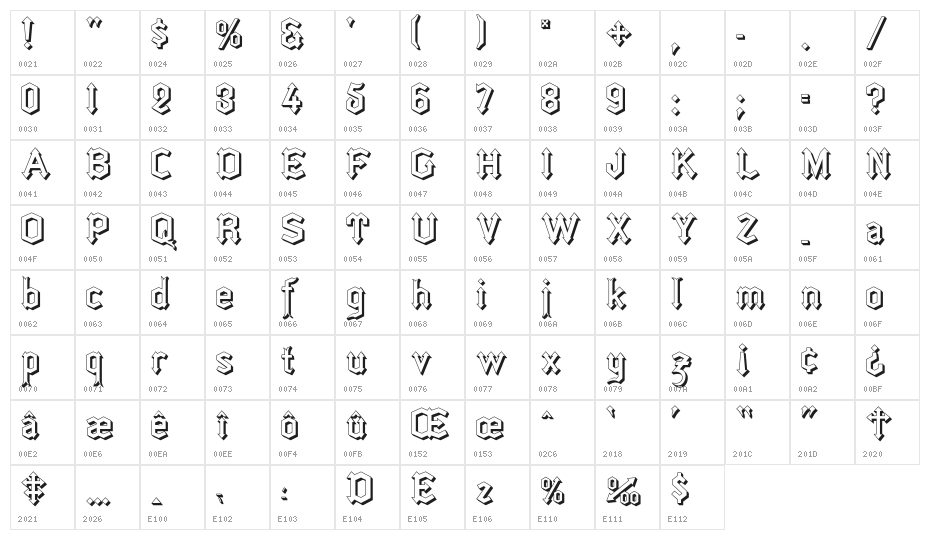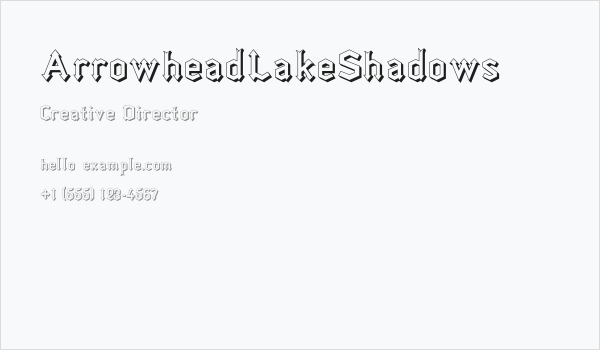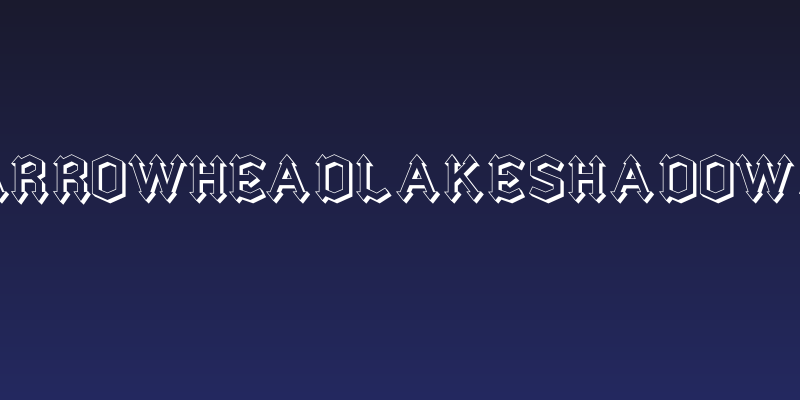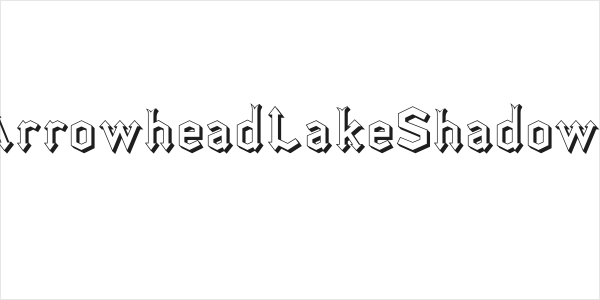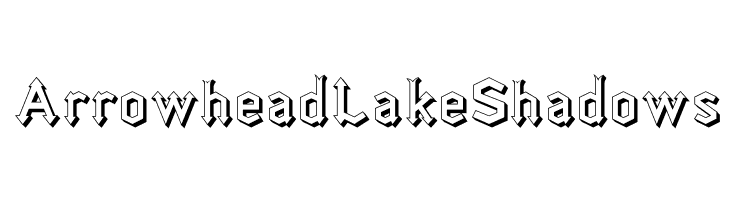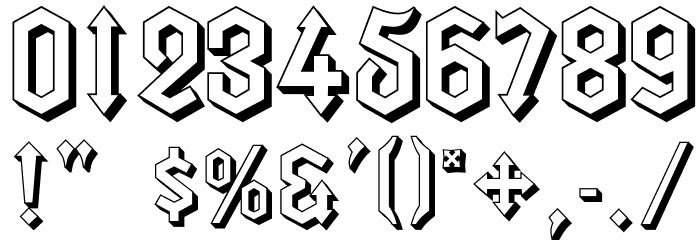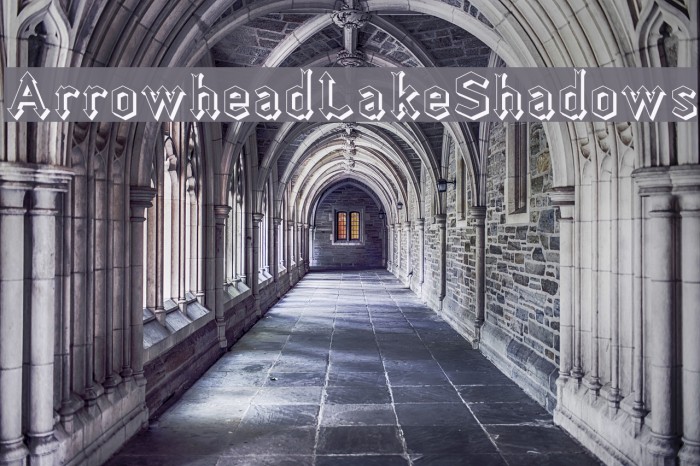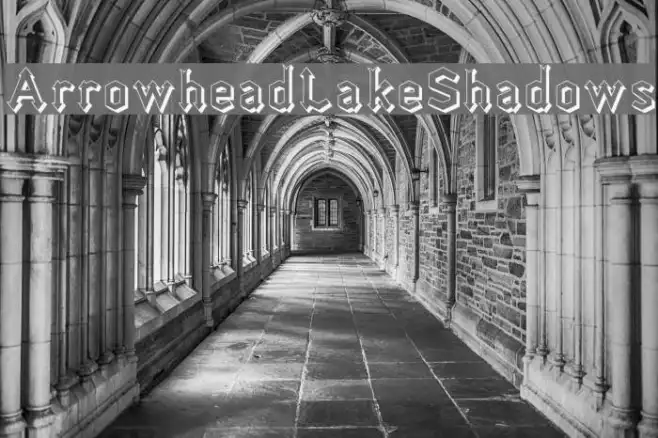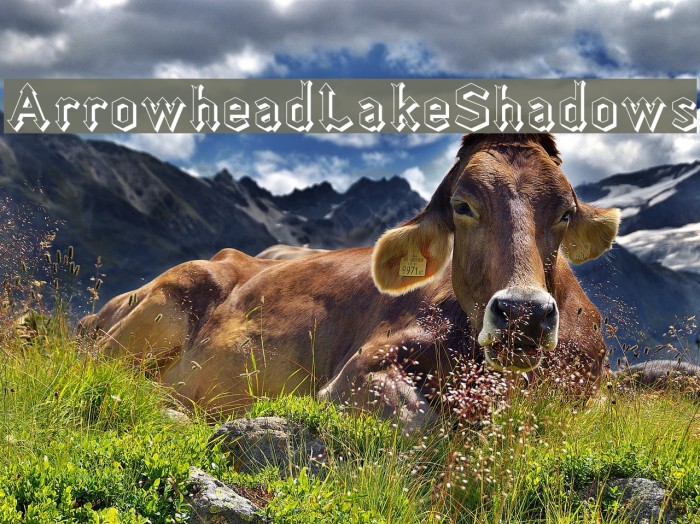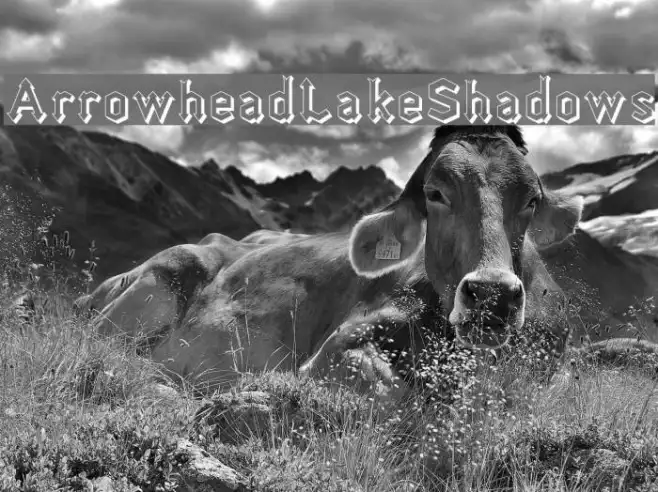
ArrowheadLakeShadows Font
ArrowheadLakeShadows Description
This font features a bold, shadowed design that combines elements of both modern and vintage styles. The uppercase and lowercase letters are characterized by sharp, angular edges and a three-dimensional shadow effect that gives them a striking appearance. The numbers and special characters follow the same design principles, ensuring consistency across all glyphs. The font's unique style makes it ideal for projects that require a strong visual impact, such as posters, logos, and branding materials. Its decorative nature is balanced by a clear legibility, making it versatile for various design applications.
| Overall Style | Modern, Vintage |
| Proposed Projects | Ideal for posters, logos, branding, and any project requiring a strong visual impact. |